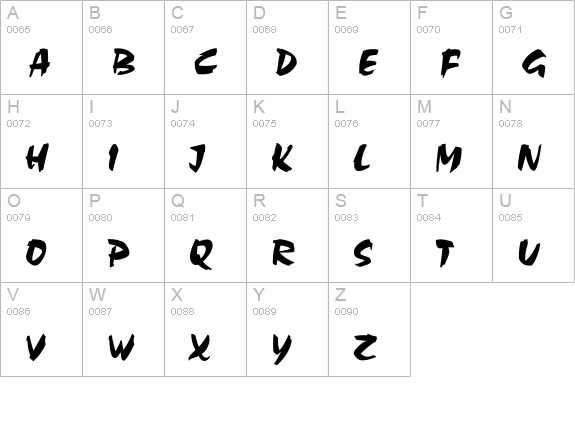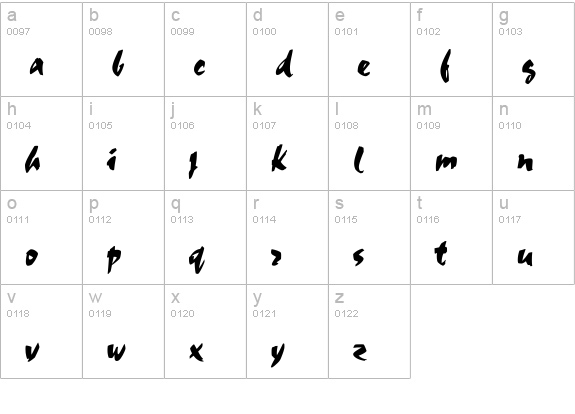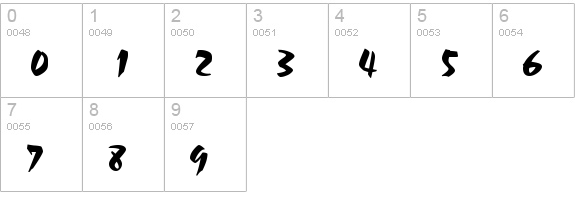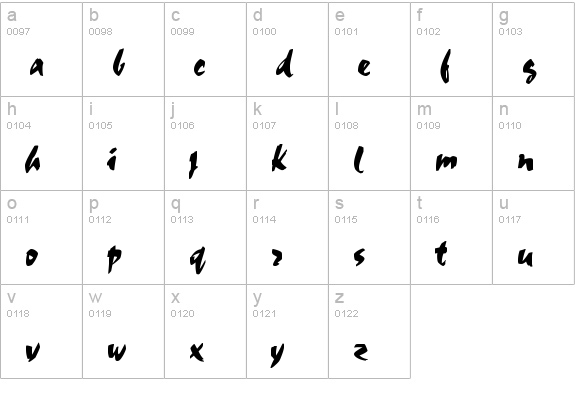
Cadellinis Font Details
Cadellinis is a stunning and versatile font that will add a touch of elegance and sophistication to any design project. With its sleek and modern lines, this font is perfect for creating eye-catching logos, stylish branding materials, elegant invitations, and so much more. The unique and intricate letterforms of Cadellinis make it a true standout in the world of typography. Its smooth curves and sharp edges create a harmonious balance that is both visually appealing and highly legible. Whether used in large headlines or small body text, Cadellinis never fails to make a bold statement. One of the best things about Cadellinis is that it is free. Yes, you read that right! This incredible font is freely available to download at FontsMarket.com. You can now access this beautiful typeface without having to spend a penny. This is a rare opportunity to add a premium-quality font to your collection, completely free of charge. Cadellinis is not just your ordinary font; it is a work of art. The attention to detail and the meticulous craftsmanship that went into its creation is evident in every stroke and curve. It is a font that exudes luxury and sophistication, making it the perfect choice for designers and creatives who want to elevate their projects to new heights. Whether you are a professional graphic designer or a hobbyist looking to add a touch of elegance to your personal projects, Cadellinis is a font that will not disappoint. Its versatility allows it to be used in a wide range of design applications, from print to digital, ensuring that you can make the most out of this stunning typeface. So don't miss out on the opportunity to download Cadellinis for free at FontsMarket.com. Take advantage of this incredible offer and let this remarkable font elevate your designs to the next level. With Cadellinis, the possibilities are endless.